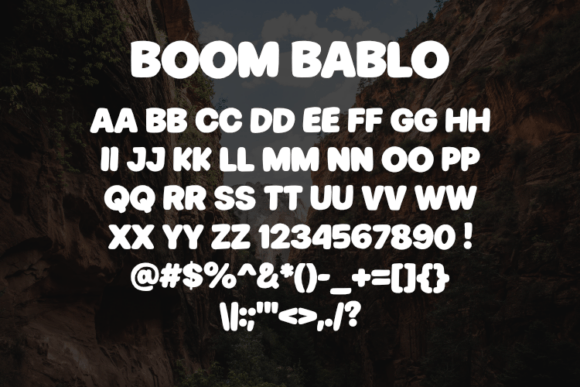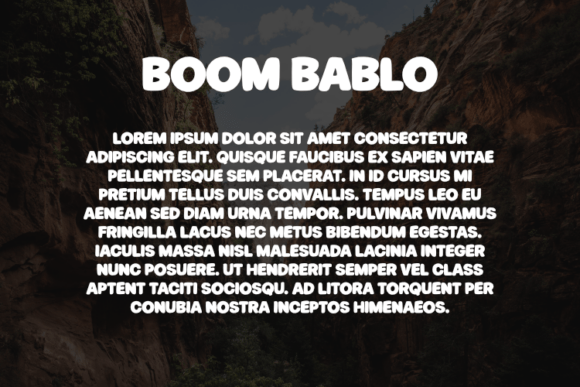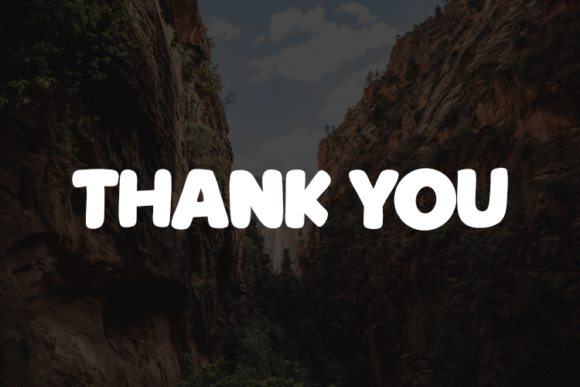
The Perfect Harmony of Design and Readability
Have you ever stared at a blank page, waiting for inspiration to strike? For many designers, that moment of creative spark is all it takes to bring an idea to life. And for those who crave a typeface that echoes that sense of excitement, Boom Bablo Font is here to deliver. This modern and elegant typeface is designed to adapt to any design challenge, ensuring that your message shines through with clarity and style.
With its versatility and superior cross-platform compatibility, the Boom Bablo Font is an invaluable asset for designers. Whether you’re working on a project for Adobe Creative Suite, Microsoft Office, or any other design software, this OpenType Font file format ensures seamless integration and excellent readability. As a result, the Boom Bablo Font has become a go-to choice for designers seeking to elevate their work to new heights.
Boom Bablo Font Key Features
- Unique Character Set: Boom Bablo Font features a unique character set with over 1000 glyphs, including a wide range of international characters and symbols.
- Script and Stylistic Sets: Boom Bablo Font includes 5 script and stylistic sets, allowing for a wide range of creative possibilities.
- Multi-Layered Design: The font features a multi-layered design, with multiple layers of text and graphics that can be combined to create unique and complex designs.
Boom Bablo Font Review
I recently had the chance to work with the Boom Bablo Font, and I’m excited to share my honest thoughts on this font.
- The Boom Bablo Font has a unique and playful personality that’s perfect for creative projects.
- The font is highly customizable, allowing you to adjust the weight, width, and other parameters to suit your design needs.
- The font’s character set is extensive, making it suitable for a wide range of languages and applications.
- The font’s readability can be compromised at smaller font sizes, making it less suitable for body text.
- The font’s bold weights can appear slightly uneven, which may be distracting in certain contexts.
Overall, I think the Boom Bablo Font is a solid choice for creative projects that require a unique and playful touch. While it may have some limitations, its customizability and extensive character set make it a valuable asset for designers.
Boom Bablo font is ideal for creating eye-catching headlines and titles.
Use it to add a touch of playfulness and whimsy to your designs.
It’s also great for creating social media graphics, posters, and flyers.